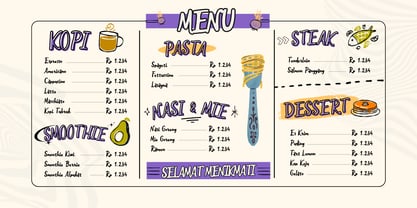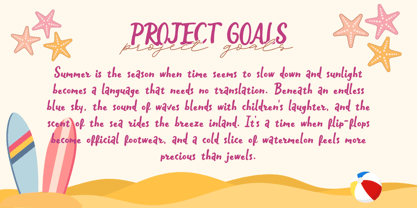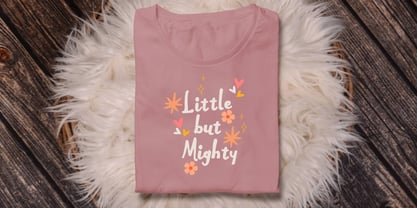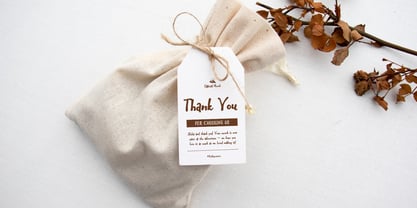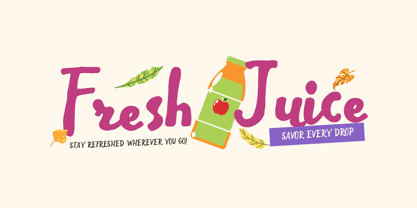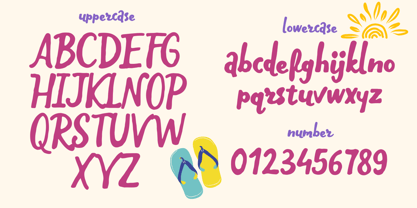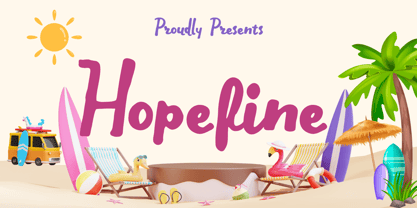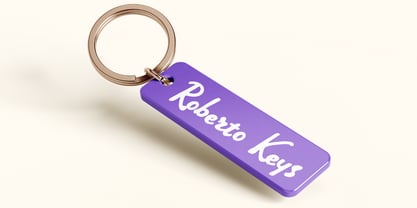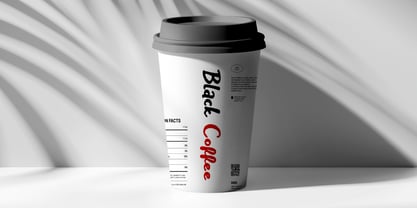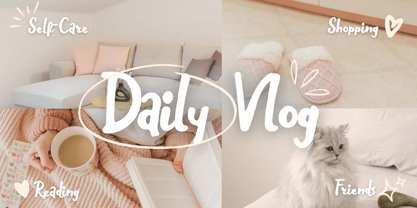
Hopefine
Hopefine is a relaxed yet expressive script font designed with loose strokes and slightly rough textures. It captures the charm of casual handwriting with a natural flow, making it perfect for projects that seek authenticity and personality.
Hopefine balances spontaneity with readability—ideal for branding, product packaging, social media graphics, editorial layouts, and handmade-inspired designs. The subtle imperfections give it a handcrafted feel, while maintaining clarity across different sizes.
This font includes a range of alternate characters and ligatures to add variety and enhance typographic rhythm. Whether used in logos, invitations, or digital quotes, Hopefine brings warmth and stylish imperfection to any creative work.
Font Features:
• Uppercase & lowercase
• Multilingual support
• Punctuation & symbols